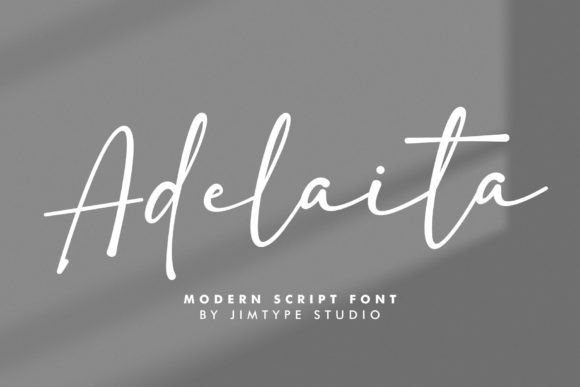
Introducing Adelaita Font: The Epitome of Elegance and Femininity
Have you ever been in the midst of working on a design project, only to find yourself stuck on the perfect font? I recall a particularly frustrating experience where I was tasked with creating an elegant invitation for a client’s wedding. The design was almost complete, but the font just wasn’t right – it was either too bland, too ornate, or just didn’t capture the essence of the occasion. That’s when I discovered ‘Adelaita Font’, a game-changing, handwriting script that has since become a staple in my design toolkit.
A Personal Encounter with Adelaita
The moment I laid eyes on ‘Adelaita Font’, I knew it was something special. Its curves and swirls exuded a sense of sophistication and femininity that was precisely what I needed for my project. ‘Adelaita’ added a touch of grace and elegance to my designs, transforming them into timeless works of art. Whether you’re a designer, crafter, or creative hobbyist, this exquisite font is sure to elevate your creative projects.
An Honest Review of Adelaita Font
The Good: What I Love About Adelaita ✨
- 💫 Elegant and sophisticated design that’s perfect for high-end branding and invitations
- ✅ Exceptional legibility, even at smaller font sizes
- 🎨 Highly versatile, suitable for a wide range of creative projects, from digital designs to print materials
- 🌈 Beautifully crafted with attention to detail, making it a true standout
The Not-So-Perfect: A Few Quirks 🤔
- ⚠️ May not be the best choice for very long blocks of text, as its elegant design is better suited for shorter passages
- 🤔 Some users may find the font’s script style a bit challenging to pair with other fonts
- Experiment with ‘Adelaita’s’ OpenType features, such as ligatures and stylistic alternates, to add more flair to your designs
- Take advantage of ‘Adelaita’s’ glyphs and OpenType features to create stunning text effects
- Use ‘Adelaita’s’ stylistic alternates and ligatures to enhance your documents
The Story Behind Adelaita: Designer Inspiration
The story behind ‘Adelaita Font’ begins with a passion for elegant, feminine typography. Inspired by classic calligraphy and handwriting, the designer aimed to create a font that embodies sophistication and charm. With meticulous attention to detail, ‘Adelaita’ was crafted to be a versatile and beautiful addition to any design project.
Q: What type of projects is Adelaita Font best suited for?
A: ‘Adelaita Font’ is perfect for branding, invitations, wedding designs, and any project requiring an elegant, feminine touch.
Q: Is Adelaita Font suitable for body text?
A: While ‘Adelaita Font’ is beautiful, it’s better suited for headings or short passages. For body text, a more straightforward font may be more readable.